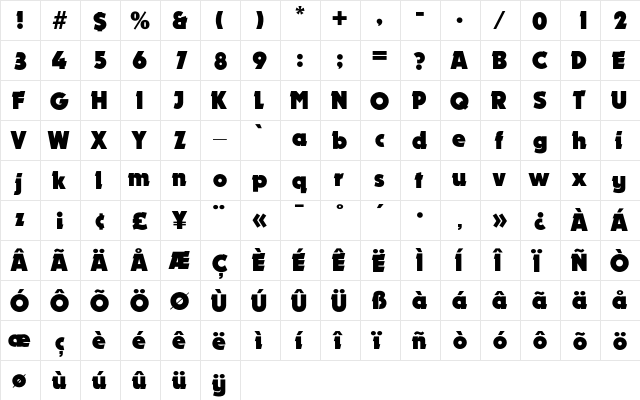
Dynamo Regular
Design Context for Dynamo Typeface
Dynamo offers clean, dependable letterforms without strong stylistic allegiance, making it a practical choice for designers who need flexibility.